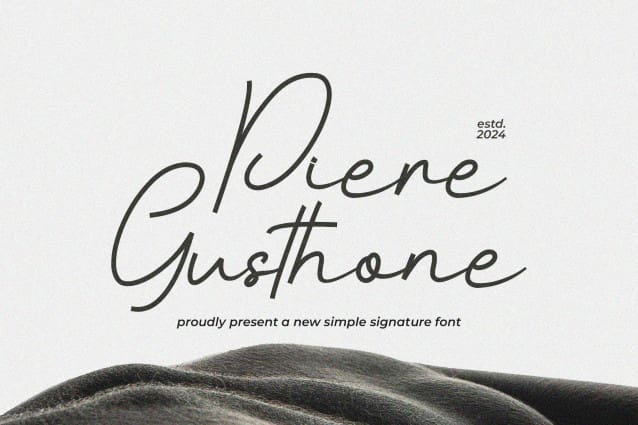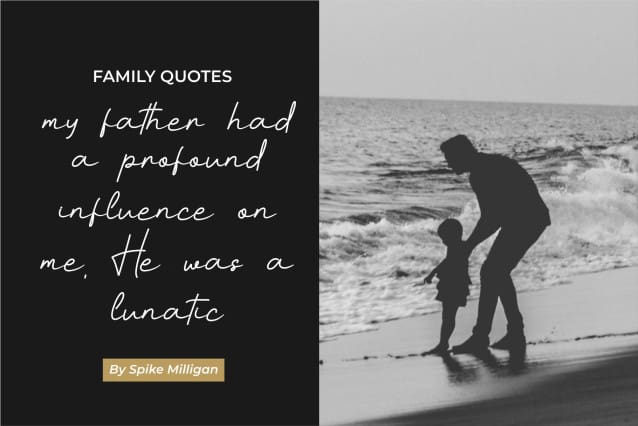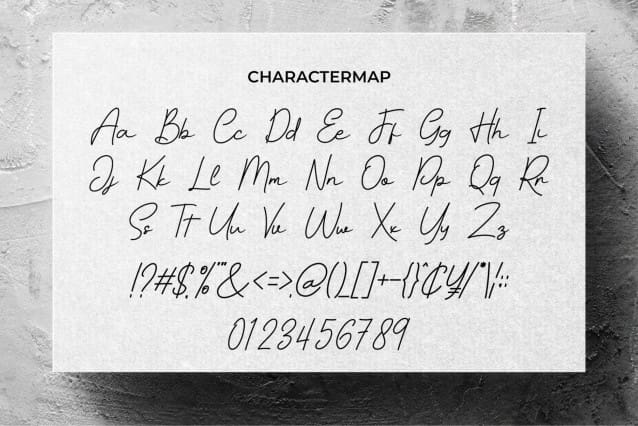
Piere Gusthone Font
Piere Gusthone Font a handwritten font with a casual and elegant style. Piere Gusthone can also be used for a variety of projects such as branding, labels, photography, invitations, stationery, wedding designs, social media posts, advertising, product packaging, product design and other awesome projects.